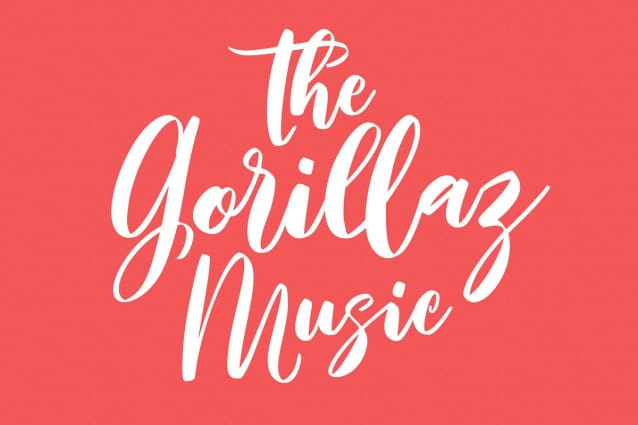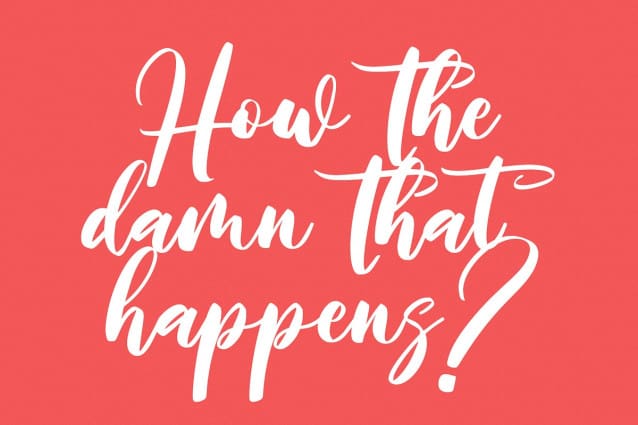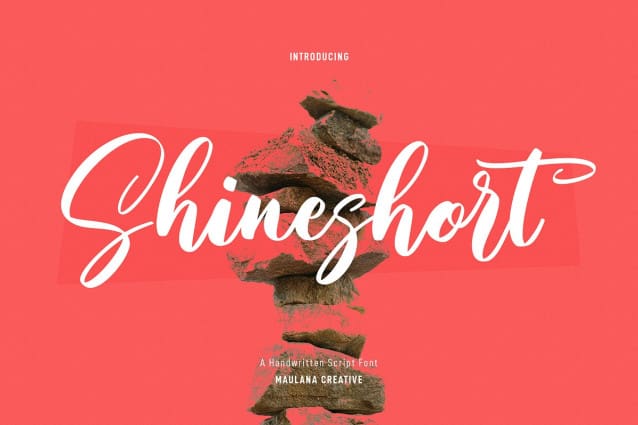
Shineshort Script Font
Shineshort Script Font is a Script font. With Bold Contrast stroke, fun character with a bit of ligatures and lowercase alternate access. To give you an extra creative work. Shineshort font support multilingual more than 100+ language. This font is good for logo design, Social media, Movie Titles, Books Titles, a short text even a long text letter and good for your secondary text font with sans or serif. Make a stunning work with Shineshort font.